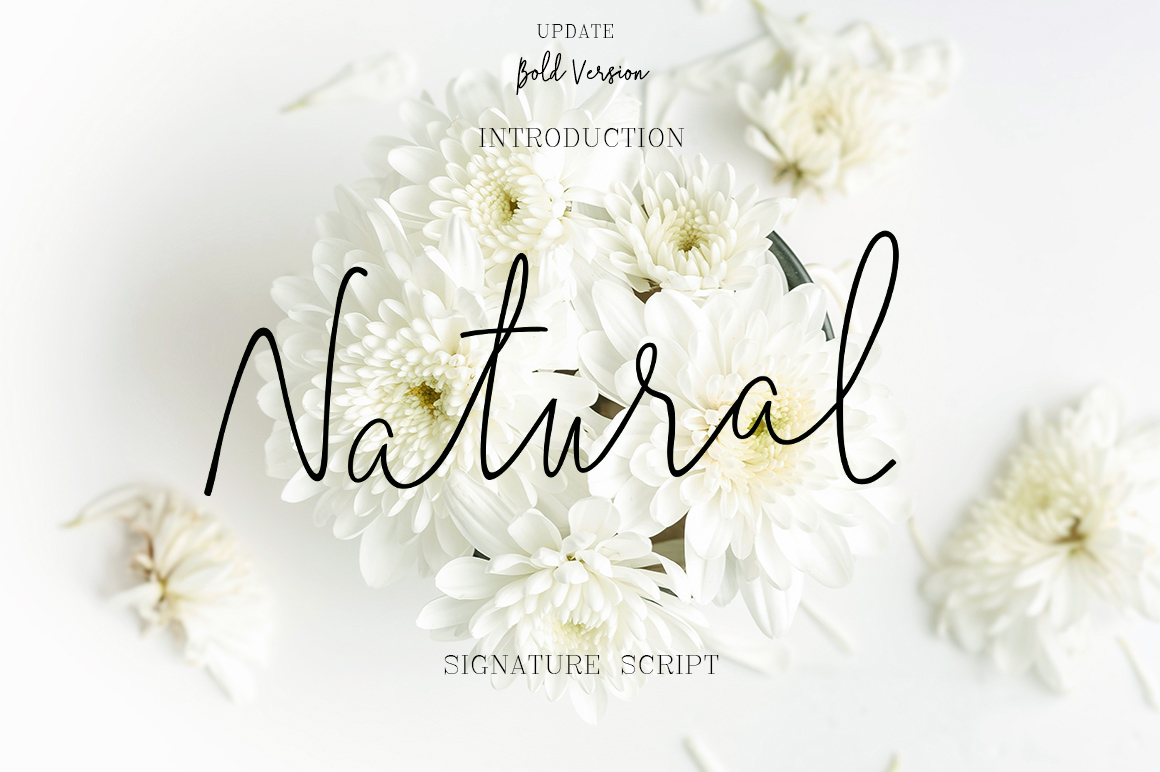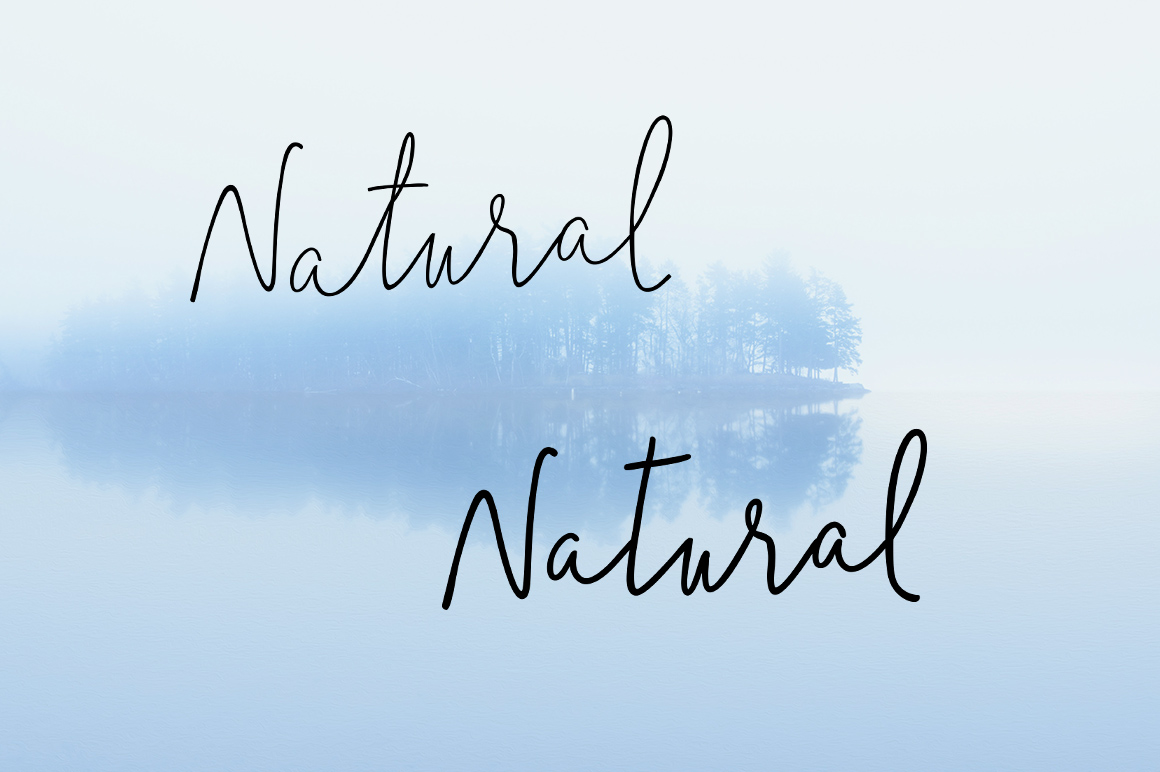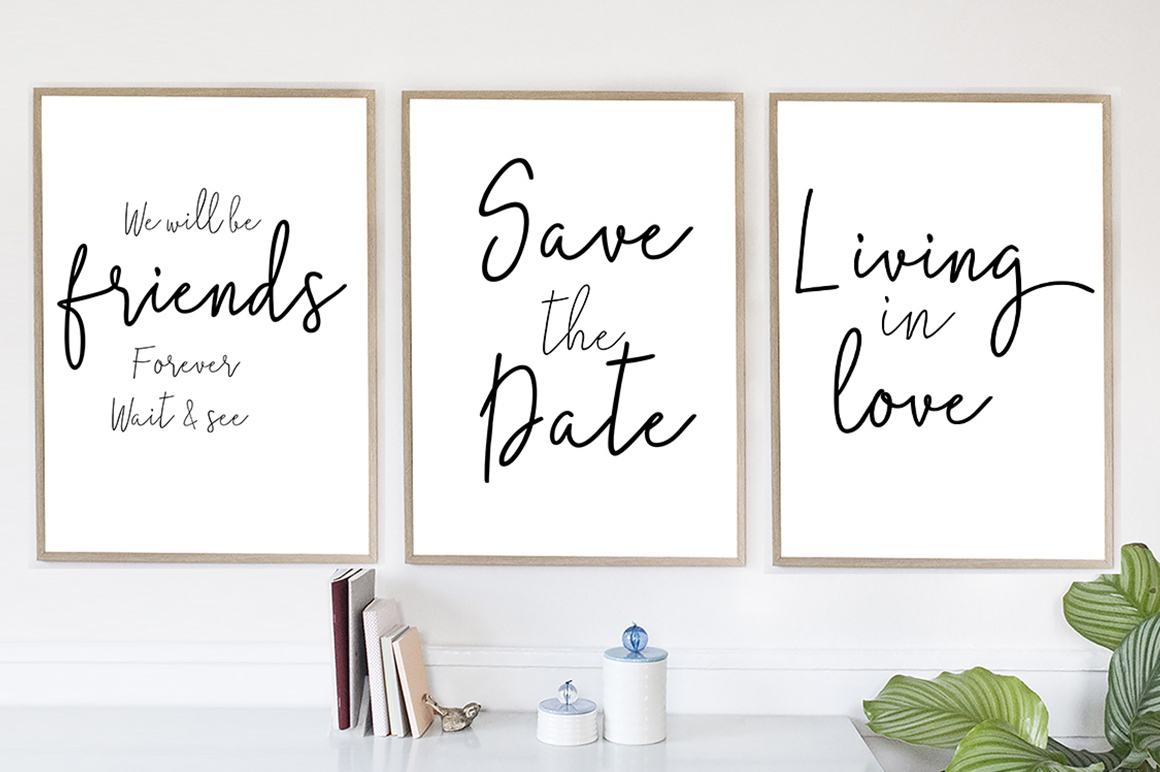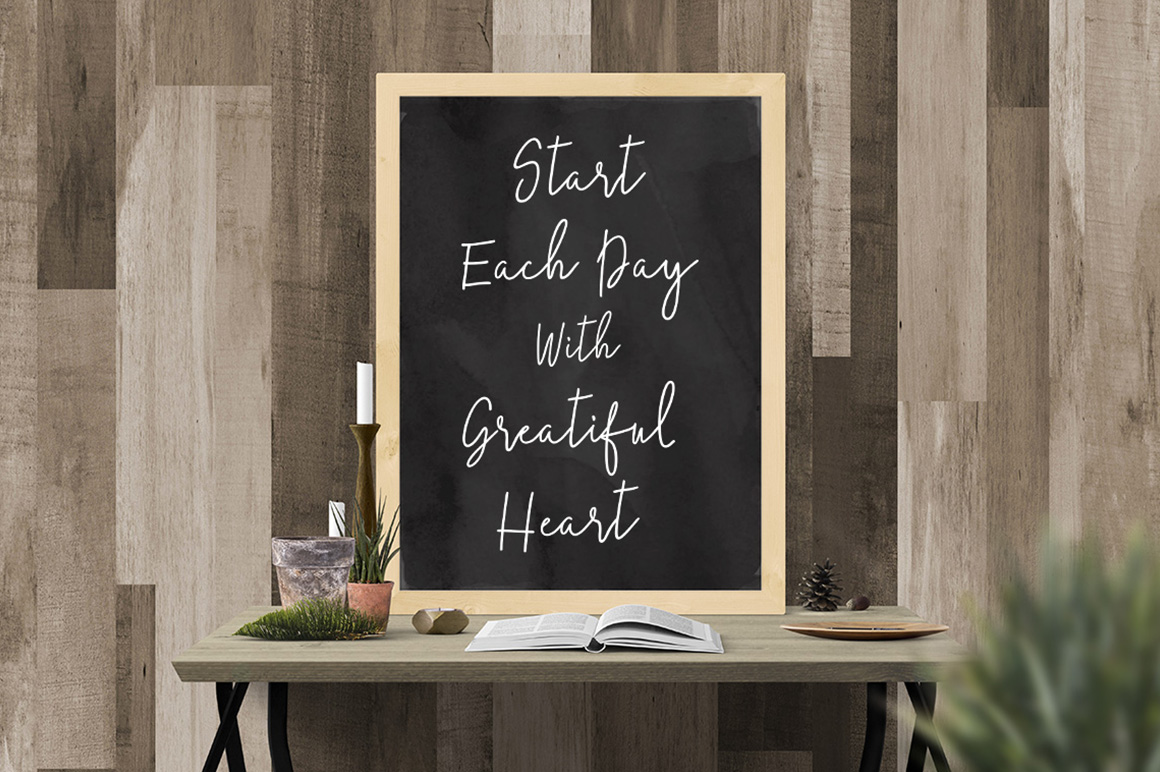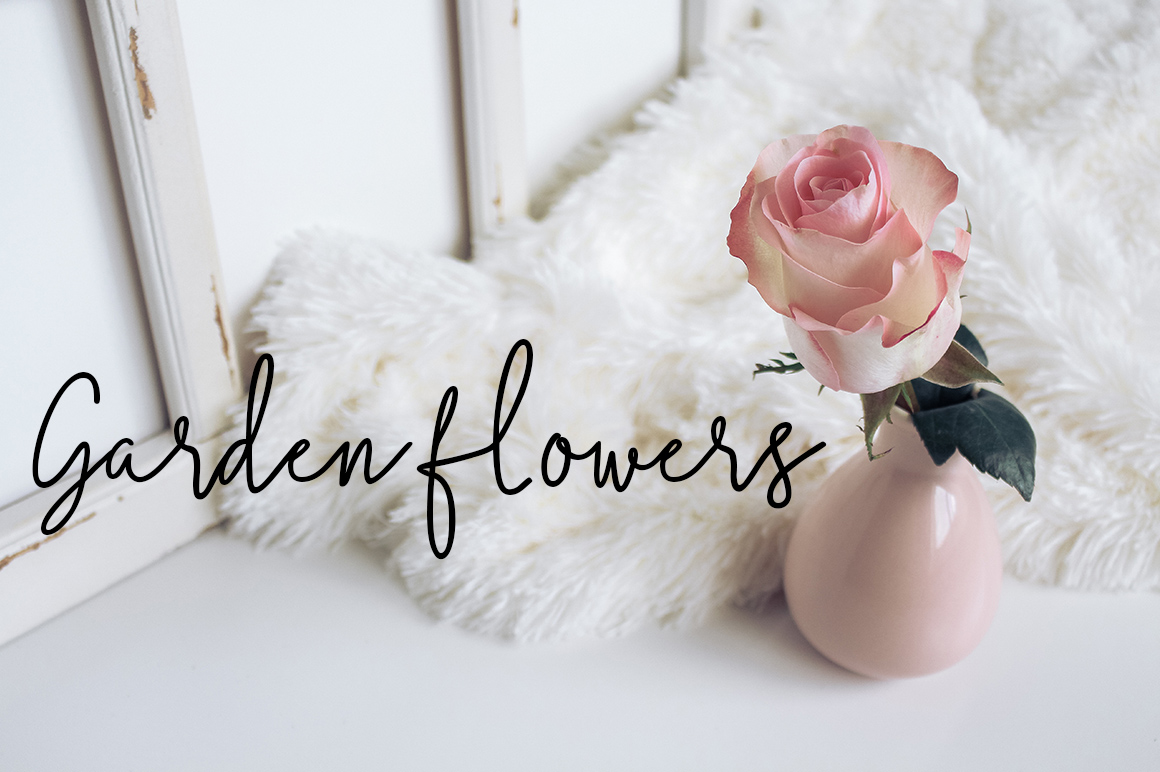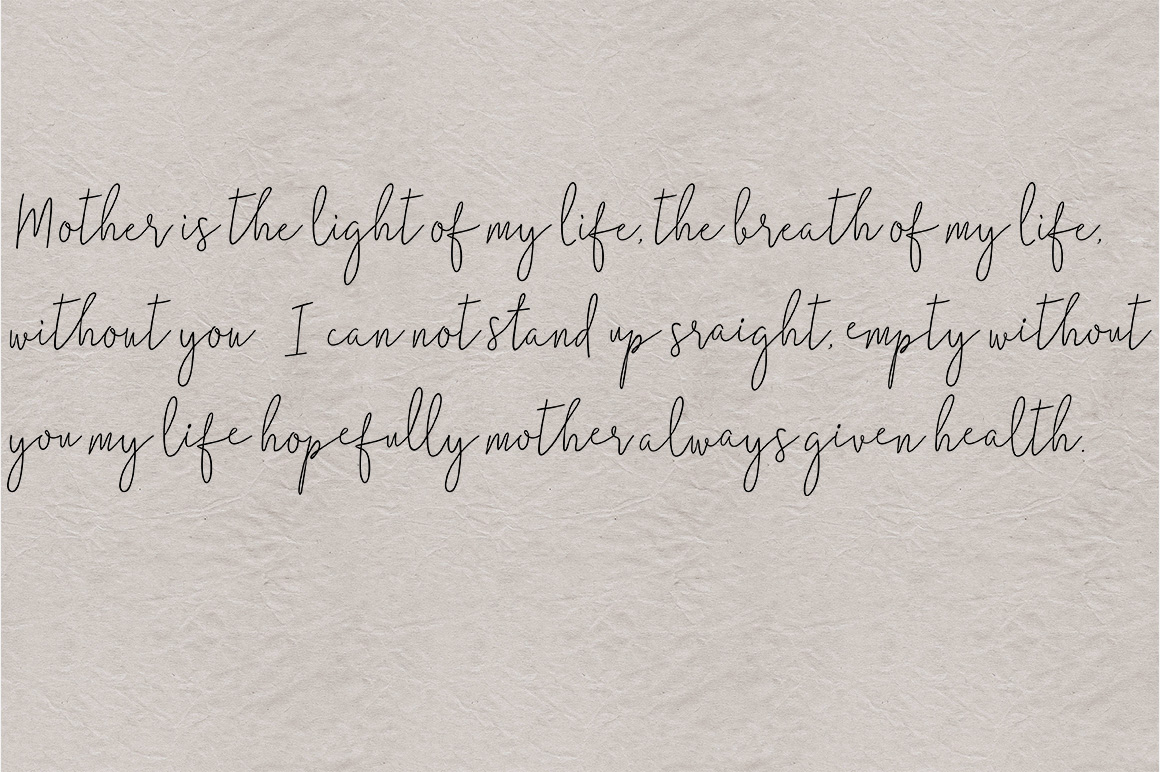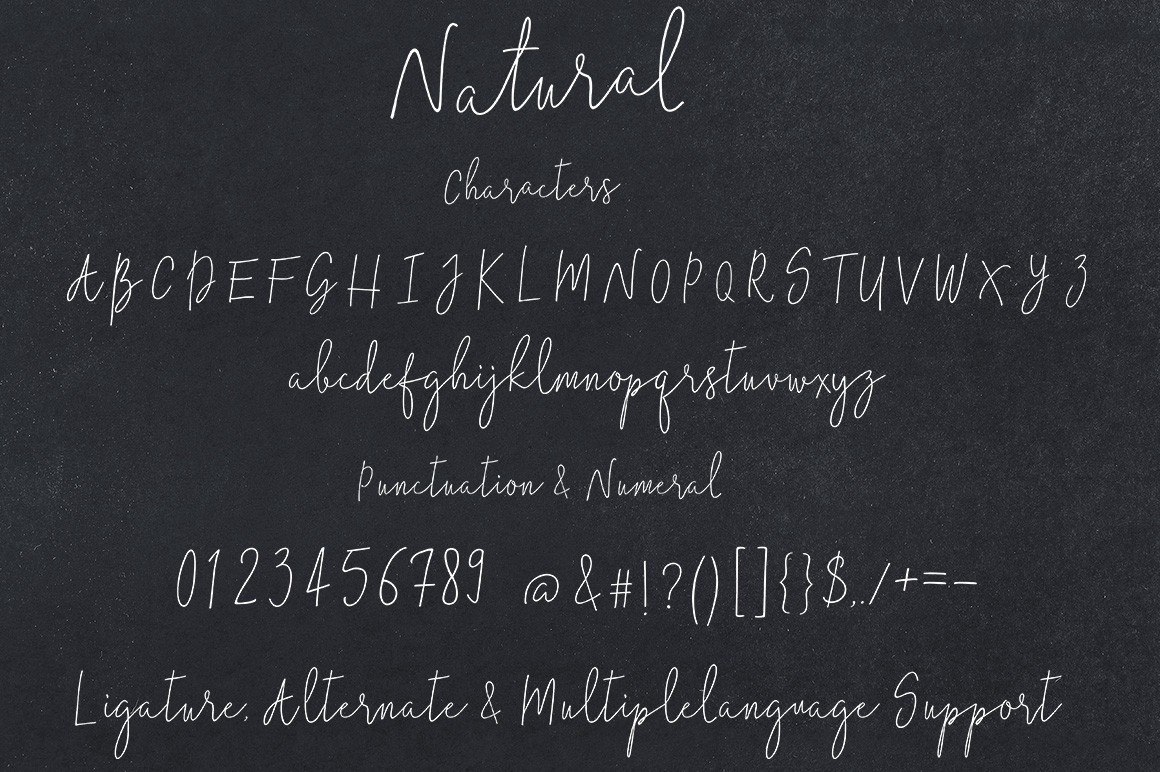
Natural Font
Natural is a new modern script with an irregular baseline. It has a trendy and feminine style. Natural looks lovely on wedding invitations, thank you cards, quotes, greeting cards, logos, business cards and more.
Including initial and terminal letters, alternates, ligatures and multiple language support.